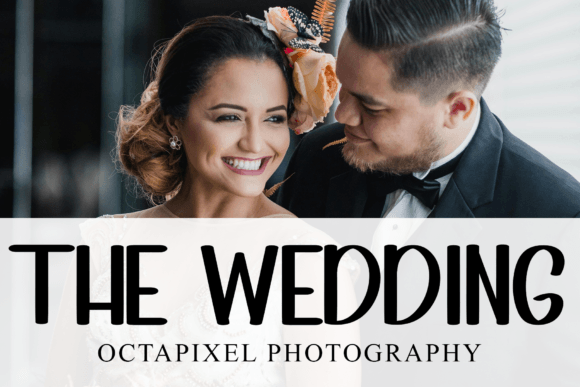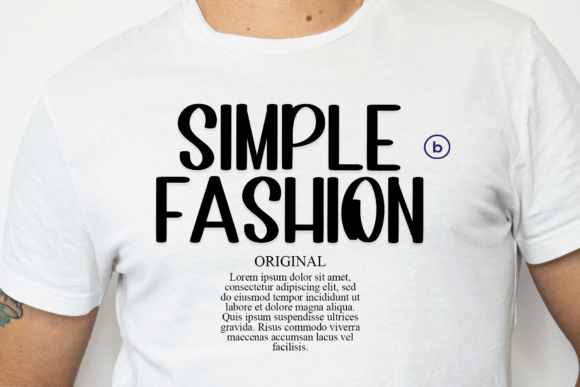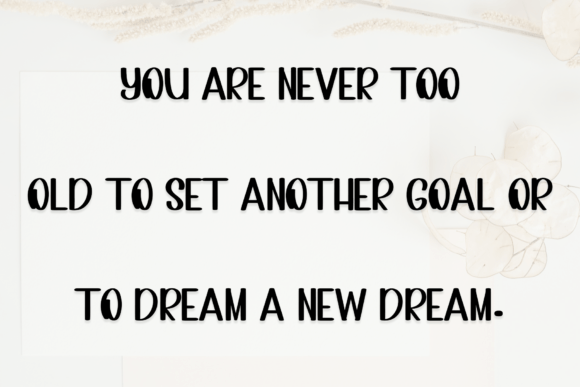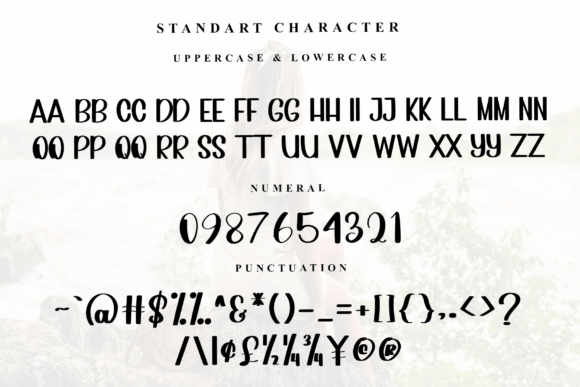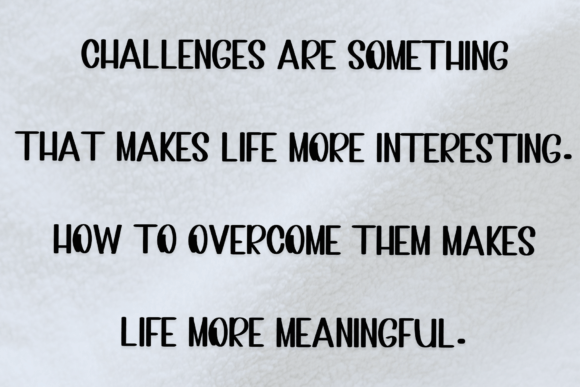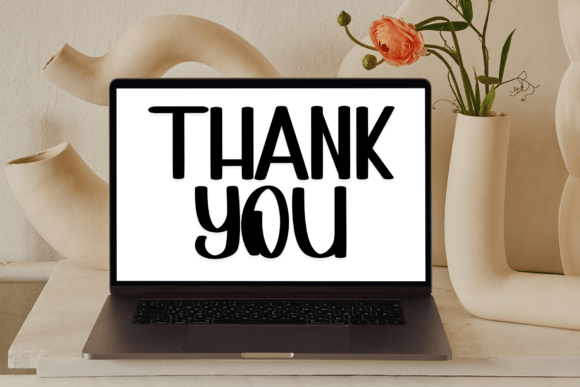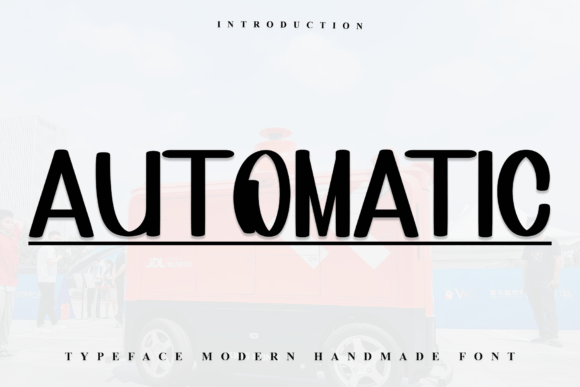
Introducing Automatic: The Charming Sans-Serif Font for Creative Projects
Are you tired of using the same old fonts for your creative projects? Look no further than Automatic, a charming sans-serif font that exudes warmth and personality. With its playful yet legible style, this font is perfect for adding a touch of whimsy to any project. In this article, we’ll explore the unique features of Automatic and how it can elevate your designs, whether you’re a seasoned designer or a crafty DIY enthusiast.
The Unique Charm of Automatic
Automatic is more than just a font – it’s a statement piece. Its playful, hand-crafted feel makes it perfect for projects that require a personal touch. The font’s natural strokes and irregularities give it a handmade authenticity that’s hard to replicate with digital fonts. Whether you’re designing greeting cards, invitations, or branding materials, Automatic adds a touch of warmth and personality that will make your project stand out.
Key Features of Automatic
- Playful yet legible style: Automatic strikes the perfect balance between playfulness and legibility, making it easy to read and fun to look at.
- Natural strokes and irregularities: The font’s handmade feel is achieved through its natural strokes and irregularities, giving it a unique and charming character.
- Sans-serif design: Automatic’s sans-serif design makes it versatile and easy to pair with other fonts.
- Perfect for creative projects: Whether you’re designing greeting cards, invitations, or branding materials, Automatic is the perfect font to add a touch of whimsy and personality.
Using Automatic for Creative Projects
Automatic is a versatile font that can be used for a wide range of creative projects. Here are a few ideas to get you started:
- Greeting cards: Add a personal touch to your greeting cards with Automatic’s playful and charming style.
- Invitations: Make your invitations stand out with Automatic’s unique and eye-catching design.
- Branding: Use Automatic to add a touch of personality to your brand’s logo, packaging, or marketing materials.
- DIY crafts: Automatic is perfect for crafty DIY enthusiasts who want to add a personal touch to their projects, such as handmade signs, banners, or decorations.
Tips for Pairing Automatic with Other Fonts
Pairing Automatic with other fonts can create a unique and visually appealing design. Here are a few tips to keep in mind:
- Contrast with serif fonts: Pair Automatic with a serif font to create a striking contrast between the two styles.
- Match with script fonts: Automatic pairs well with script fonts, creating a playful and whimsical design.
- Use with bold fonts: Pair Automatic with a bold font to create a visually appealing contrast between the two styles.
Automatic is a charming sans-serif font that’s perfect for adding a touch of whimsy and personality to any project. With its playful yet legible style, natural strokes, and irregularities, this font captures the essence of handmade authenticity. Whether you’re a designer or a crafty DIY enthusiast, Automatic is a versatile font that can elevate your designs and make them stand out. So why settle for ordinary fonts when you can add a touch of personality with Automatic?